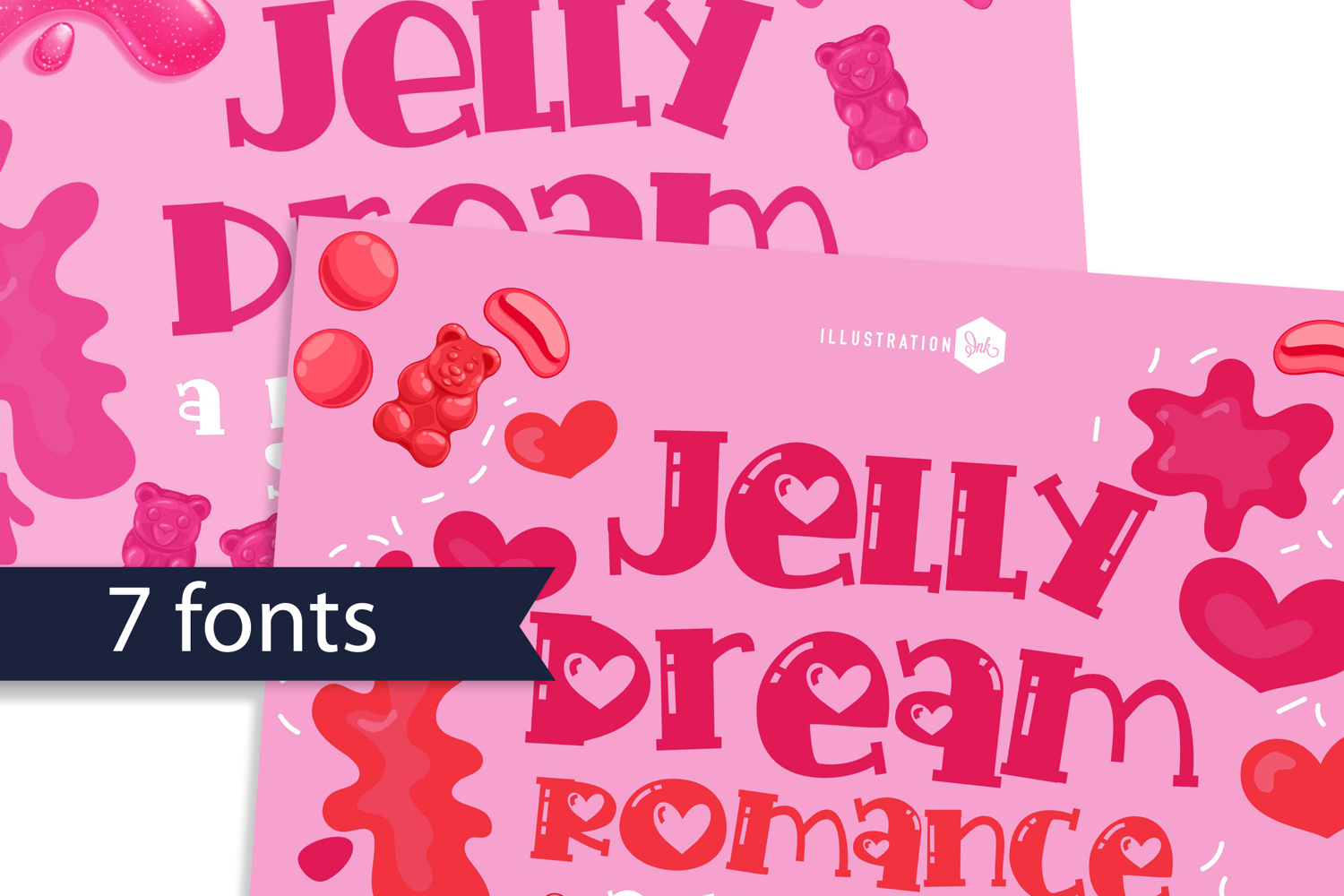
PN Jelly Dream Romance Font Family
This hand-crafted font is a whimsical, hand-written, print with some family members sporting hearts and highlights. There are 7 variations included.
• The letters are not perfectly uniform in size or shape.
• There may be slight variations in the spacing between letters and words.
• The font may have a "wiggly" or "squiggly" appearance.
• The font may be difficult to read at small sizes.